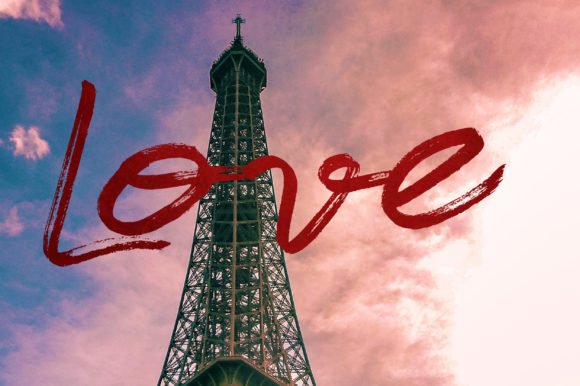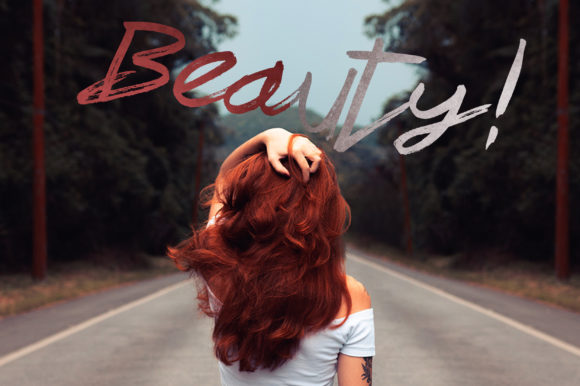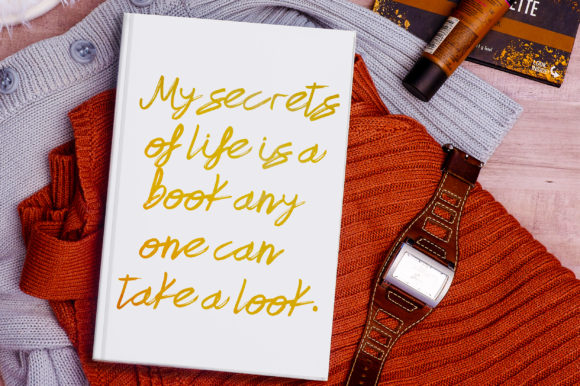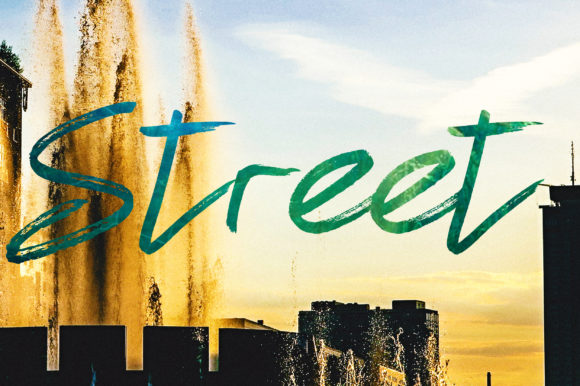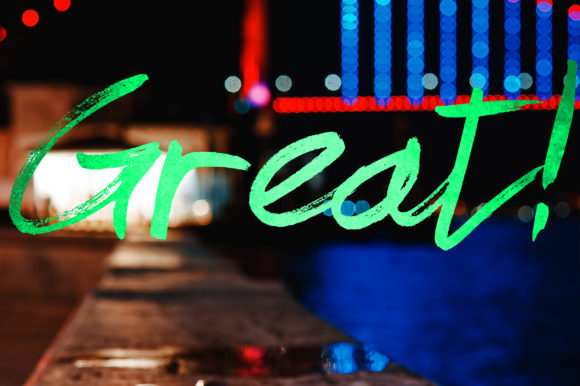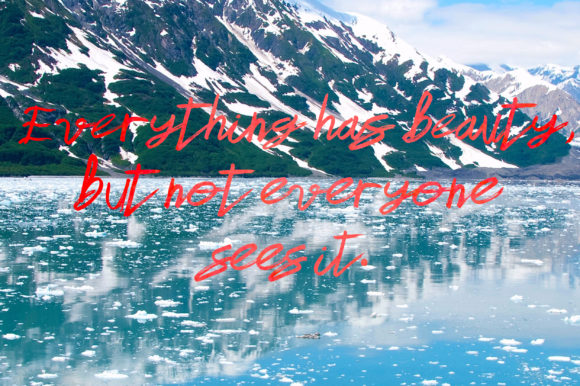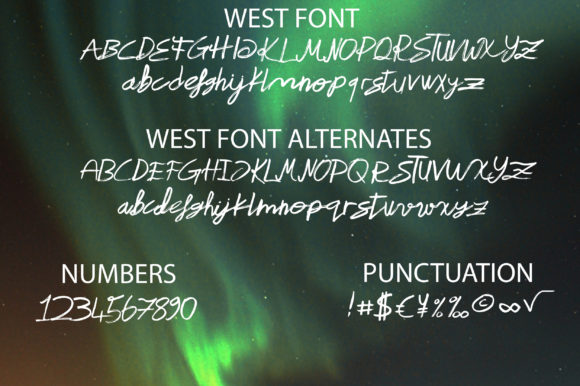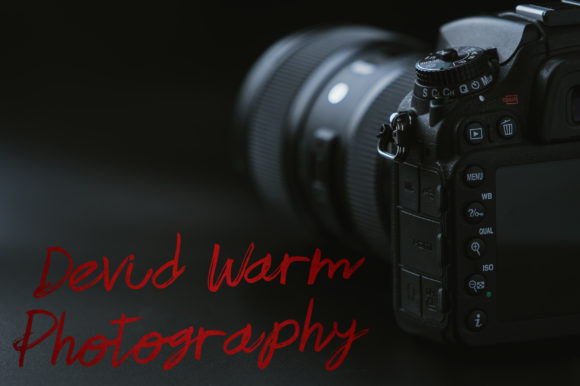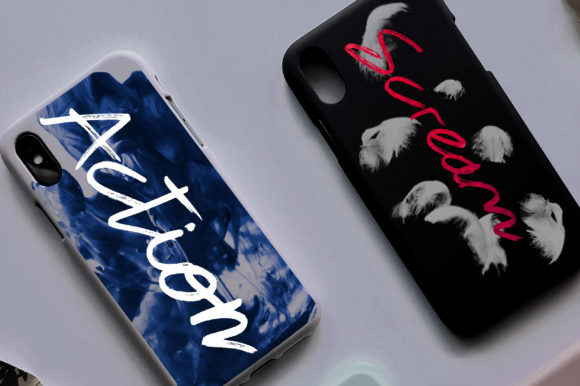
HomeScript FontsWest Font Script Fonts West Font FacebookXPinterestWhatsApp West Font Poster 2 West Font Poster 3 West Font Poster 4 West Font Poster 5 West Font Poster 6 West Font Poster 7 West Font Poster 8 West Font Poster 9 West Font Poster 10 About West Font West is a modern script font inspired by urban culture. It will take any design idea to the next level. DOWNLOAD ON CREATIVE FABRICAThis font is sold and delivered by Creative Fabrica. Font Canyon may earn a commission if you buy through this link. People also explored New Font Display Font Observable Happiness Font Banq Dirabela Font Font Daniela Font Honeywoods Font Canisper Font Helomay Font Honeymoon Font 276 0 TagsWest Font Previous articleStyle FontNext articleDellon Font LEAVE A REPLY Cancel reply Comment: Please enter your comment! Name:* Please enter your name here Email:* You have entered an incorrect email address! Please enter your email address here Website: Save my name, email, and website in this browser for the next time I comment. Personal Use Free Rembank Personal Use Free Read more about this font Milda Personal Use Free Read more about this font Shkoder 1989 Personal Use Free Read more about this font Creativo Personal Use Free Read more about this font BLOG Top 10 Handwritten Fonts That Elevate Your Designs Top 10 Handwritten Fonts That Will Elevate Your Designs Handwritten fonts bring a warm, personal touch to every creative project. Whether you're designing logos, invitations,... Best Fonts for T-Shirt Design – Top 2025 Picks Transform Your Website: Elevate Your Typography with 7 Best Web Font Generators How to Install and Use Fonts on Windows, macOS, and Web Projects